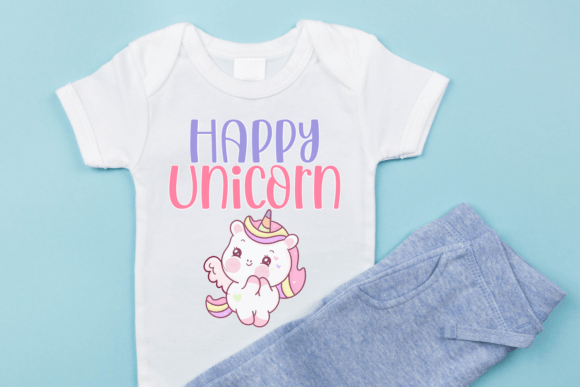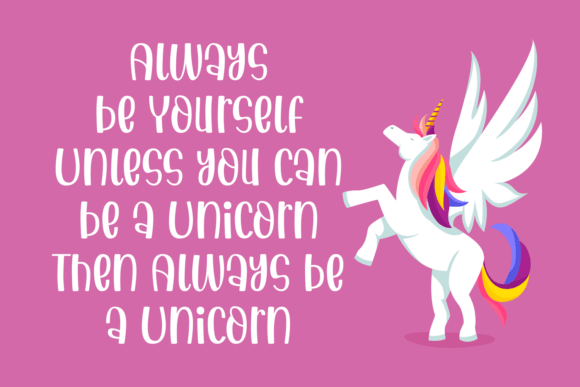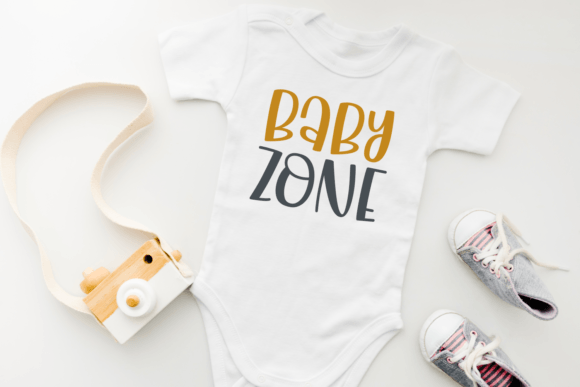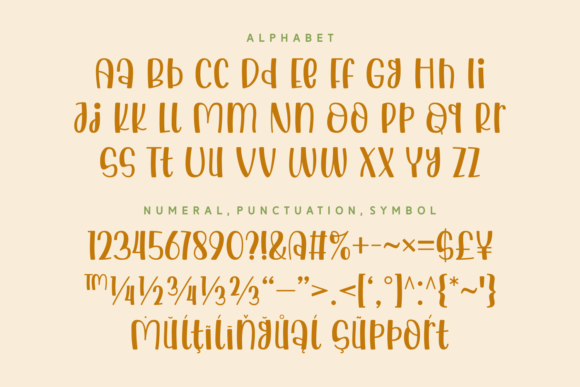
Flying Unicorn Font: Add a Touch of Whimsy to Your Designs
Are you looking for a font that can add a dash of playfulness and creativity to your designs? Look no further than the Flying Unicorn font! This charming handwritten font is perfect for projects that require a touch of whimsy, such as children’s books, invitations, or playful branding designs.
What is Flying Unicorn Font?
Flying Unicorn is a playful handwritten font with a whimsical and carefree feel. Its uneven, organic strokes and charming imperfections evoke a sense of fun and creativity. The quirky character shapes and unique letterforms add a sense of individuality and personality, making it ideal for designers and crafters who want to add a personal touch to their work.
Characteristics of Flying Unicorn Font
The Flying Unicorn font has several characteristics that make it stand out from other fonts. Some of its key features include:
- Uneven, organic strokes: The font’s uneven strokes give it a handmade, imperfect feel that is perfect for creating a sense of whimsy and playfulness.
- Charming imperfections: The font’s imperfections, such as tiny flaws and irregularities, add to its charm and character.
- Quirky character shapes: The font’s quirky character shapes and unique letterforms make it perfect for creating designs that require a touch of personality and individuality.
- Handwritten feel: The font’s handwritten feel makes it perfect for creating designs that require a personal touch, such as children’s books, invitations, and playful branding designs.
Uses for Flying Unicorn Font
The Flying Unicorn font is perfect for a variety of design projects, including:
- Children’s books: The font’s playful and whimsical feel makes it perfect for children’s books, such as storybooks, picture books, and early readers.
- Invitations: The font’s charming and quirky feel makes it perfect for invitations, such as birthday party invitations, baby shower invitations, and wedding invitations.
- Playful branding designs: The font’s unique and playful feel makes it perfect for branding designs that require a touch of whimsy, such as logos, packaging, and advertising.
- Crafting projects: The font’s handmade feel makes it perfect for crafting projects, such as scrapbooking, card making, and DIY projects.
Tips for Using Flying Unicorn Font
Here are some tips for using the Flying Unicorn font in your designs:
- Use it sparingly: The font’s playful and whimsical feel can be overwhelming if used too much. Use it sparingly to add a touch of personality to your designs.
- Pair it with other fonts: The font pairs well with other fonts, such as serif and sans-serif fonts. Experiment with different font combinations to find the perfect look for your design.
- Experiment with colors: The font looks great in a variety of colors, from bright and bold to pastel and soft. Experiment with different colors to find the perfect look for your design.
- Have fun: The Flying Unicorn font is all about having fun and being creative. Don’t be afraid to experiment and try new things!
The Flying Unicorn font is a playful and whimsical font that is perfect for designers and crafters who want to add a touch of personality to their work. Its uneven, organic strokes and charming imperfections evoke a sense of fun and creativity, making it ideal for projects that require a touch of whimsy. With its quirky character shapes and unique letterforms, the Flying Unicorn font is sure to add a dash of playfulness and creativity to any design.